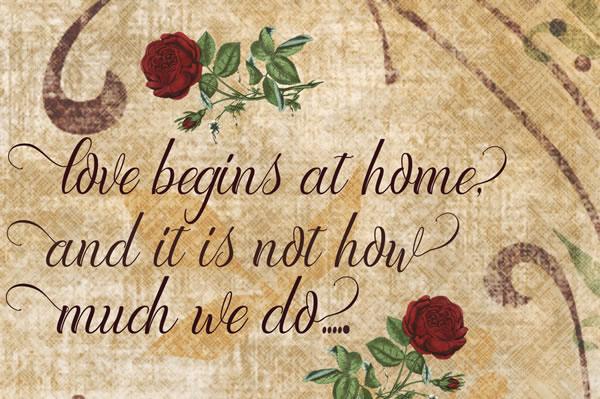
Introduction to Lattonya Font
Have you ever been working on a creative project, pouring your heart and soul into it, only to feel like something is missing? That’s when I stumbled upon the enchanting Lattonya Font. As I gazed at its elegant characters, I couldn’t help but feel inspired. The smooth, flowing lines seemed to dance across the page, inviting me to experiment and bring my design to life.
As designers, we’re always on the lookout for unique design resources that can elevate our work and make it stand out. The Lattonya Font is a game-changer, offering a level of sophistication and whimsy that’s hard to find elsewhere. With its transparent background and high-quality design, it’s the perfect addition to any creative project. And the best part? It’s available for free download, making it accessible to designers of all levels.
- Unique characteristics: Distinctive style and elegant feel
Honest Review: Lattonya Font
I recently stumbled upon the Lattonya Font while searching for a design resource for my creative project. As a designer, I’m always on the lookout for high-quality fonts that can elevate my work.
- ✨ Unique and stylish design that adds a touch of elegance to any project.
- ⚠️ Limited character set, which may not be ideal for projects that require a wide range of languages.
Overall, I was impressed with the Lattonya Font and would recommend it for personal or commercial use. While it may not be perfect, its unique design and high-quality images make it a valuable addition to any design resource collection. The best part? It’s available for free download, making it an accessible option for designers on a budget.
The Lattonya Font is a high-quality, versatile design resource perfect for various creative projects. It can be used in a range of applications, including digital and print media.
Compared to Lattonya Font, Oswald has a more geometric and modern look, making it suitable for contemporary designs. While Lattonya Font is more playful and cursive, Oswald is ideal for projects that require a clear and concise message.
Compared to Lattonya Font, Montserrat has a more rugged and industrial look, making it suitable for designs that require a strong and bold statement. While Lattonya Font is more elegant and cursive, Montserrat is ideal for projects that require a modern and urban feel.